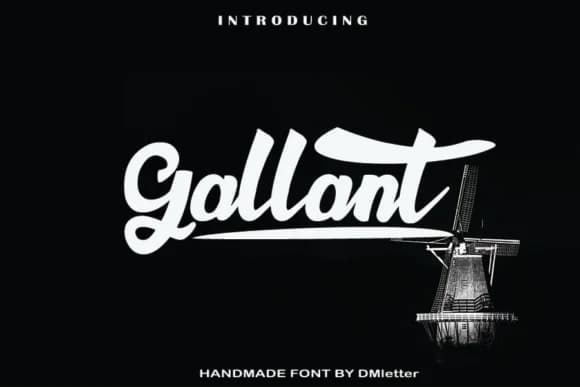
Gallant Font by dmletter31 is a hand-lettered script featuring bold, flowing letterforms and decorative swashes that bring distinctive character to any typographic project. The font's painterly construction and authentic hand-drawn quality make it ideal for creating sophisticated wedding invitation suites, luxury cosmetics labeling, boutique retail signage, and handcrafted greeting card designs where visual movement and genuine personality truly matter.
The expressive swashes and stylish character variations give designers flexibility to customize each application. Whether you're building premium brand identity materials for upscale services or creating bespoke packaging for artisanal products, this font delivers. The expansive character set includes decorative alternates that let you personalize every piece, adding richness and depth to your typographic choices. This script shines when given breathing room in headlines and focal-point text, where its dynamic letterforms command attention without feeling generic or overly corporate.
Designed for projects where craftsmanship matters, Gallant bridges the gap between custom lettering and ready-made fonts. From indie business owners to design professionals seeking typography with genuine warmth and hand-drawn sensibility, this font delivers the impact of original lettering without the time investment. The versatile weight and flowing character make it adaptable across different scales and applications. Get Gallant Font on Creative Fabrica and bring this expressive script to your design toolkit.
Gallant Font is a script font that shines as a display or heading face. Pair it with a clean sans-serif or serif font for body text β the contrast creates a clear hierarchy while the two styles stay balanced and easy to read.